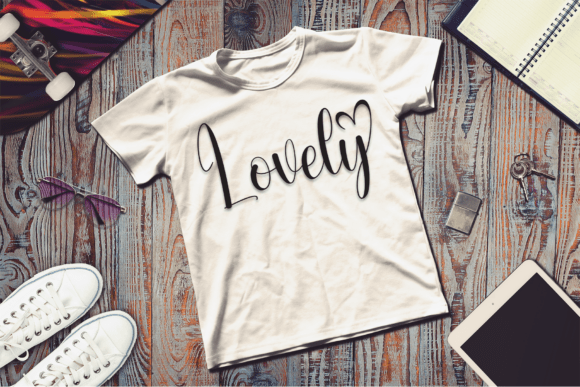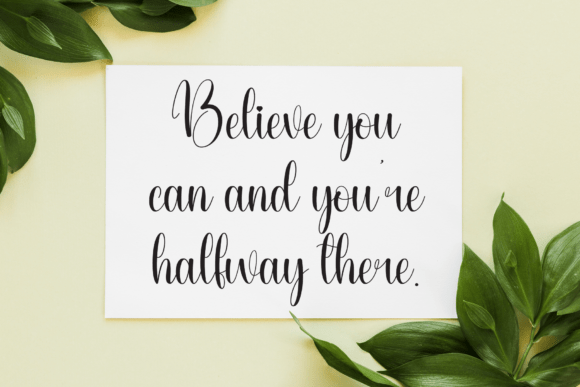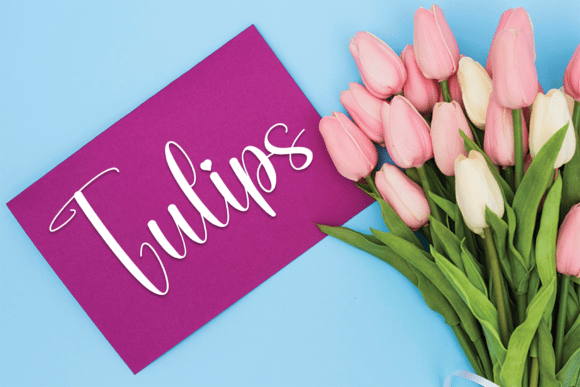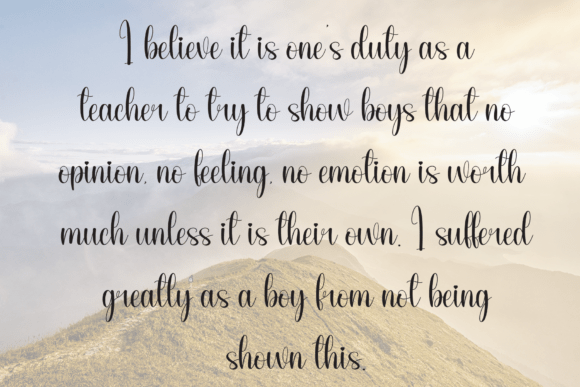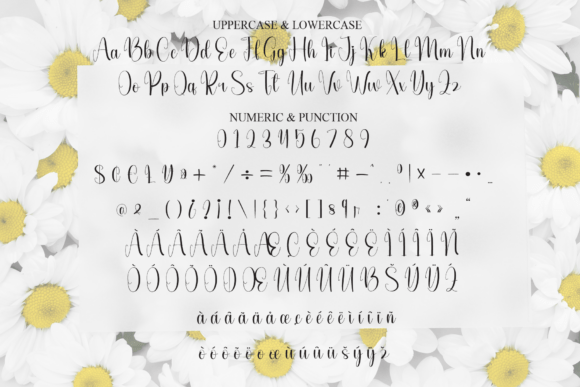
Daisy Font: Elevate Your Designs with a Touch of Elegance and Whimsy
In the world of typography, fonts play a crucial role in conveying the tone and personality of a design. For those seeking a typeface that exudes modern elegance with a dash of playfulness, the Daisy Font is an exceptional choice. This stylish handwritten script font has been gaining popularity among designers and crafters for its unique ability to add a personal touch to various projects.
What Makes Daisy Font Stand Out?
Daisy Font is characterized by its fluid strokes and charming curves, which set it apart from more traditional typefaces. Its modern elegance is perfectly balanced with a playful touch, making it versatile for a wide range of applications. Whether you’re working on a logo, packaging, invitation, or any other design project, Daisy Font brings a level of sophistication and creativity that is hard to achieve with more conventional fonts.
Ideal Applications for Daisy Font
The versatility of Daisy Font makes it suitable for various design projects. Here are some ideal applications:
• Logos: Create a memorable brand identity with a logo that stands out. Daisy Font’s unique charm can help your brand appear more approachable and elegant.
• Packaging: Add a touch of sophistication to your product packaging. The font’s modern elegance can enhance the perceived value of your products.
• Invitations: Whether it’s a wedding invitation, birthday party, or corporate event, Daisy Font can add a personal and whimsical touch that makes your invitations more appealing.
• Marketing Materials: From brochures to flyers, Daisy Font can help your marketing materials look more creative and engaging.
Benefits of Using Daisy Font
Choosing Daisy Font for your design projects comes with several benefits:
• Warmth and Sophistication: The font adds a warm and sophisticated feel to your designs, making them more engaging and appealing to your audience.
• Creativity and Uniqueness: With its playful touch and modern elegance, Daisy Font allows you to create unique designs that stand out from the crowd.
• Versatility: The font’s versatility means it can be used across various design projects, providing a consistent aesthetic.
• Ease of Use: Designed to be user-friendly, Daisy Font can be easily integrated into your design workflow, saving you time and effort.
Tips for Maximizing the Potential of Daisy Font
To get the most out of Daisy Font, consider the following tips:
• Pair it with Complementary Fonts: For optimal results, pair Daisy Font with fonts that complement its style. A sans-serif font can provide a nice contrast and enhance readability.
• Experiment with Colors: Don’t be afraid to experiment with different colors. Daisy Font looks great in both bold and pastel colors, allowing you to match it with your brand’s color scheme.
• Play with Sizes: Varying the size of your text can add depth and interest to your design. Use larger sizes for headings and smaller sizes for body text.
Daisy Font is a stylish and versatile typeface that can elevate your designs with its modern elegance and playful touch. Ideal for a wide range of applications, from logos and packaging to invitations and marketing materials, this font adds a personal feel that engages and appeals to audiences. By incorporating Daisy Font into your design projects, you can achieve a unique look that sets you apart from the competition. So, why settle for ordinary when you can make your designs extraordinary with Daisy Font?
Whether you’re a professional designer or a crafty DIY enthusiast, Daisy Font is sure to become a favorite in your typography arsenal. Its ability to bring warmth, sophistication, and creativity to every project makes it an invaluable tool for anyone looking to make a lasting impression.